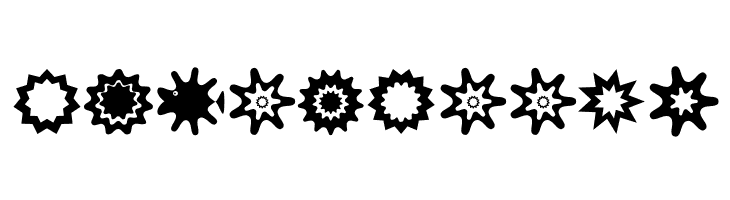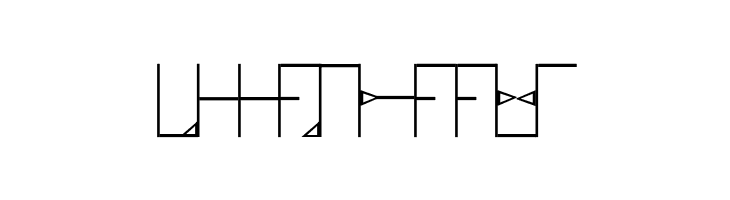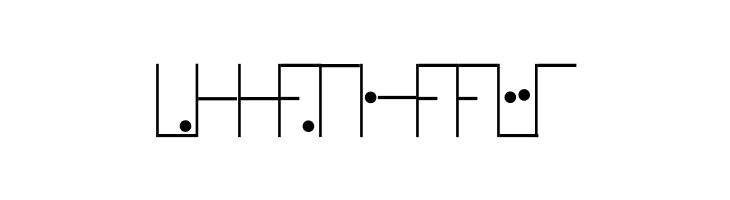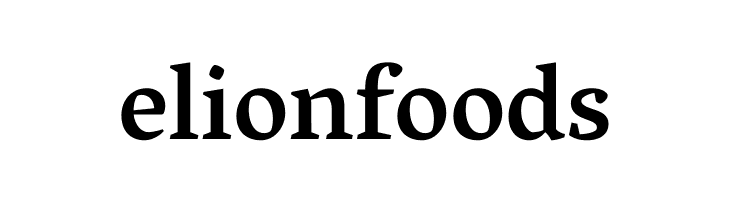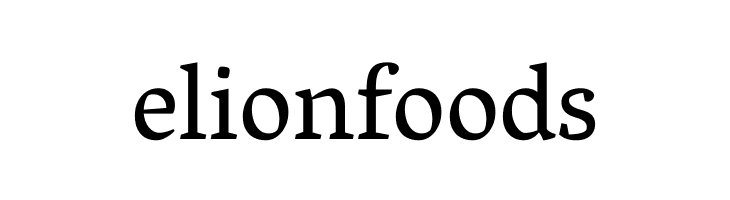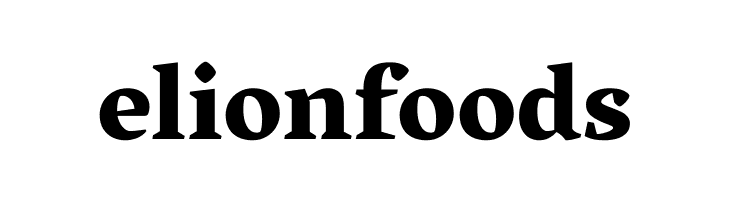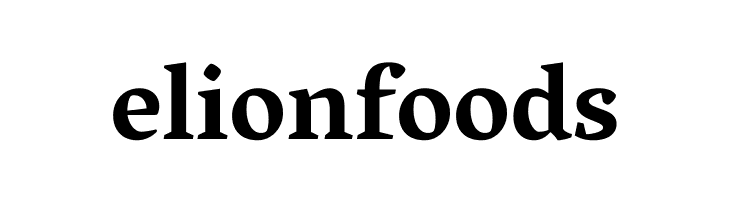
A decorative set of starburst and cog-shaped vector frames.
A modern, geometric font with intersecting lines and dots for a futuristic look.
A geometric and angular font with a futuristic and abstract design.
A classic serif font with a modern touch, featuring elegant and refined letterforms.
A bold serif font with strong strokes and a classic, versatile style.
A bold, heavy serif font with a classic and authoritative style.
A modern serif font with medium weight and balanced proportions.